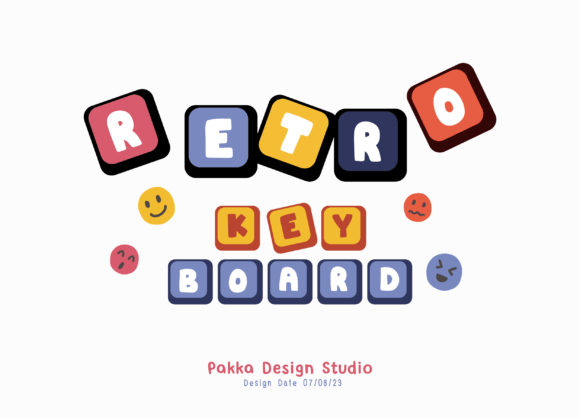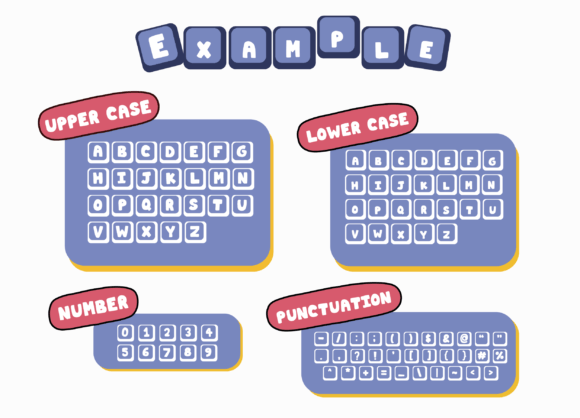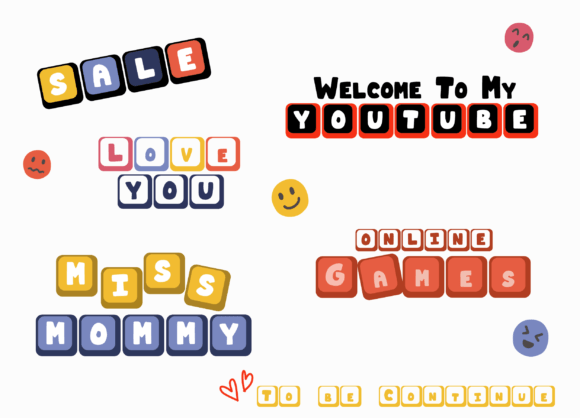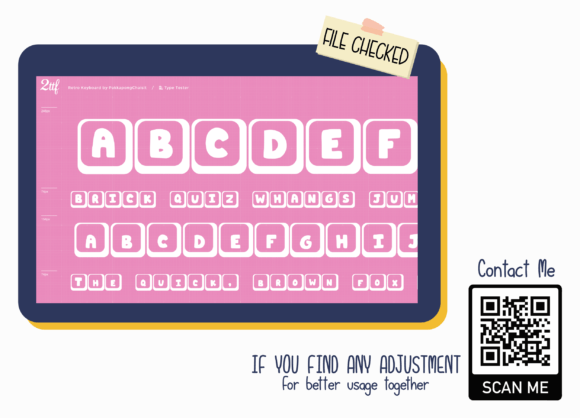
Retro Keyboard Font
About the Retro Keyboard Font
The Retro Keyboard Font offers a perfect balance of form and function for your design needs. A keyboard button font in a retro theme takes young creators on a journey to the past, blending the allure of vintage tech with playful simplicity. Each letter resembles classic typewriter keys, evoking a sense of nostalgia and exploration.
Decorate your retro project with our keyboard design font.
Retro Keyboard Font is ideally suited for headlines, short slogans, and logos where its playful, retro aesthetic can shine. It works exceptionally well in projects related to gaming, technology, or vintage-inspired brands. Use it sparingly in packaging design, for example, as an accent rather than for extensive text. Avoid using it for body copy or UI elements; its unique character isn’t conducive to readability in large blocks of text.
This font’s personality is undeniably bold and playful, yet maintains a level of approachability. To balance this, pair it with a clean sans-serif like Open Sans for body text or a more refined serif like Merriweather for a touch of elegance. Consider a geometric sans-serif, such as Montserrat, for a modern contrast, or for a more retro feel, a script font like Pacifico could add visual interest.
The overall effect will depend on your chosen pairing but will likely project a fun, approachable, and slightly nostalgic vibe.
Retro Keyboard Font Usage Examples
Retro Keyboard Font Example